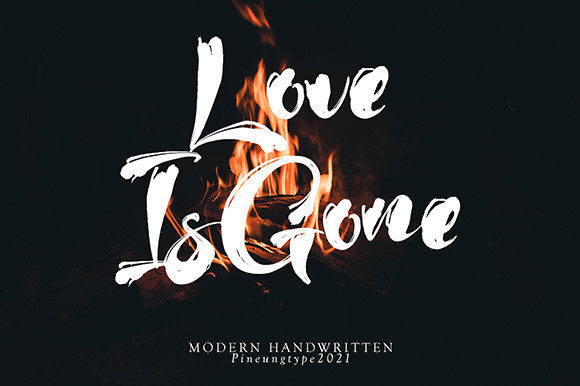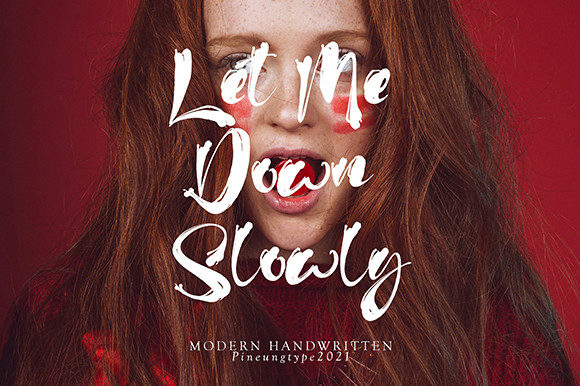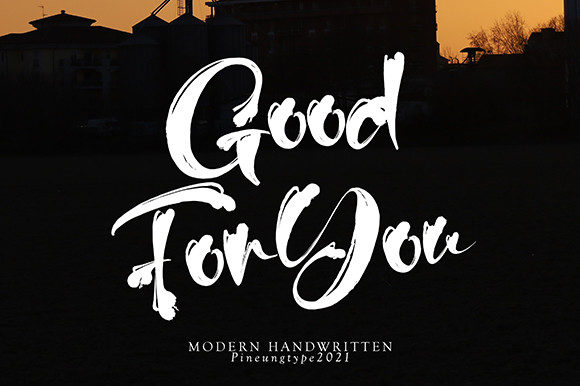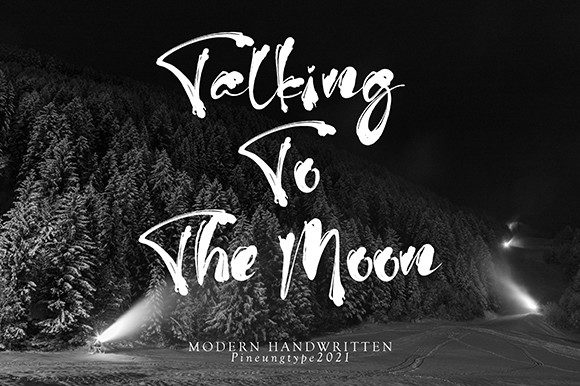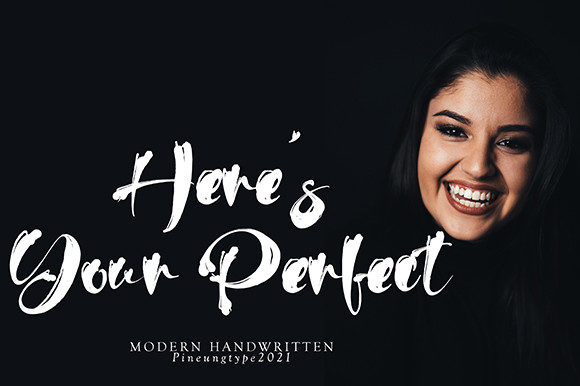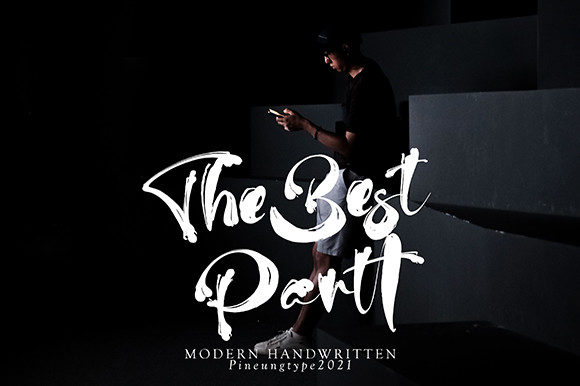
The Ultimate Guide to Good For You Font: Elevate Your Design Game
I’ll never forget the time I was working on a branding project for a trendy new cafe, and I just couldn’t find the right font to capture their vibe. The client wanted something that exuded confidence and style, but still felt approachable and friendly. That’s when I stumbled upon Good For You, a chic script font that instantly became my new obsession. ✨
An Honest Review of Good For You Font
- ✨ **Confidence and Versatility**: Good For You emanates a sense of style and sophistication that’s hard to find in other fonts.
- ✅ **Stylish Alternates and Ligatures**: The font’s OpenType features, including alternates and ligatures, make it incredibly versatile and perfect for a wide range of projects.
- 💫 **Easy on the Eyes**: The font’s unique blend of modern and classic elements makes it easy to read, even in smaller sizes.
While Good For You is an amazing font, there are a few things to keep in mind: ⚠️
- 🤔 **Limited Use in Body Text**: While Good For You is great for headlines and titles, it may not be the best choice for longer body text due to its script nature.
- ⚠️ **Some Alternates Can Be Finicky**: Occasionally, certain alternates or ligatures may not display correctly, depending on the platform or software being used.
The Backstory Behind Good For You Font
Good For You was designed with the modern creative in mind. Its creator wanted to craft a font that was both stylish and versatile, with a unique blend of modern and classic elements. The result is a font that’s perfect for designers, crafters, and creative hobbyists who want to add a touch of confidence and sophistication to their work.
Q: What makes Good For You font so special?
A: Good For You’s unique blend of modern and classic elements, combined with its stylish alternates and ligatures, make it a standout font that’s perfect for a wide range of projects.
Q: Is Good For You suitable for body text?
A: While Good For You is a beautiful font, it’s best suited for headlines, titles, and short paragraphs. For longer body text, you may want to choose a more traditional font.